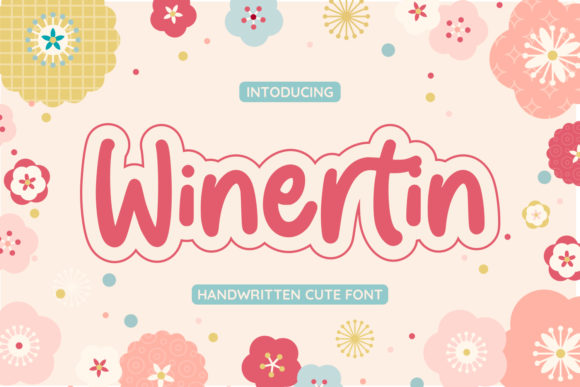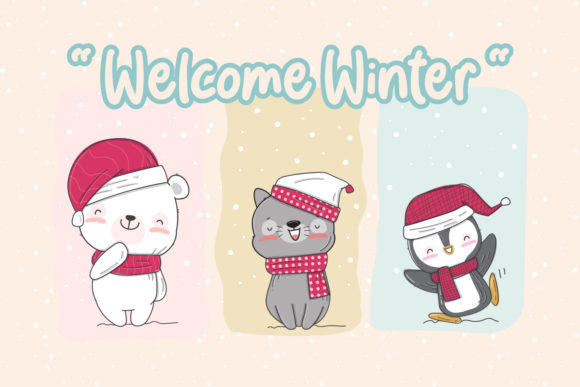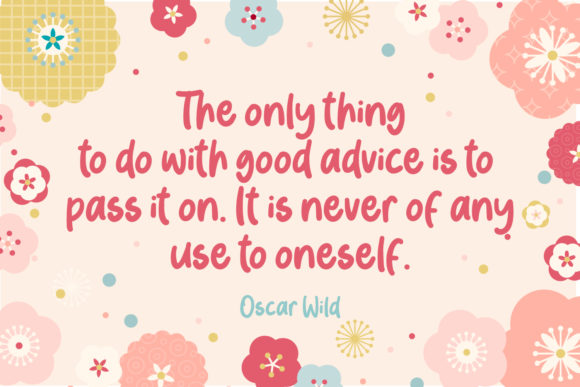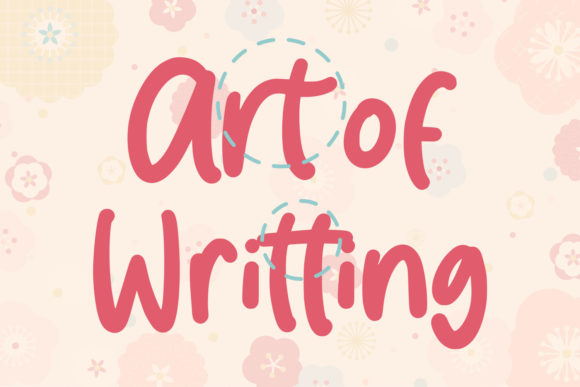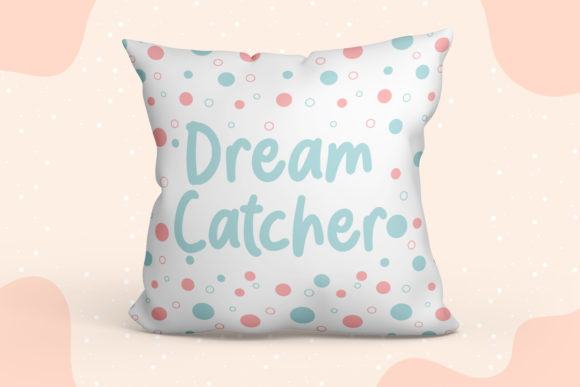
Winertin Font
About Winertin Font
Winertin is a cute and trendy handwritten font, featuring an incredibly friendly feel. This font is the perfect fit for all of your logos, branding, social media, invitations, quotes, stationery and crafty DIY projects.